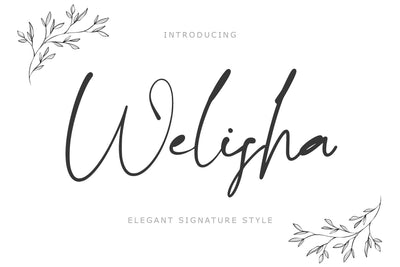
Welisha
"Welisha" is a very elegant signature font. This font is equipped with uppercase, lowercase, numerals, punctuations and multilingual support. Very suitable for spring, summer, weddings, invitations, engagement, certificates, logos, posters, prints, branding and others.